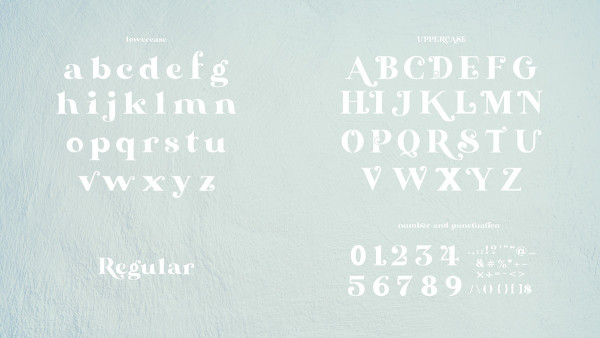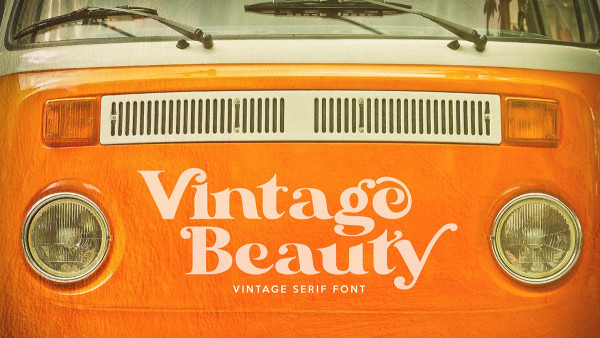
Vintage Beauty Font
Vintage Beauty Font, modern serif typeface with vintage fashionable look and retro-modern style. The font is suitable for any branding project like logo, esport, and many more. outstanding in a wide range of contexts.